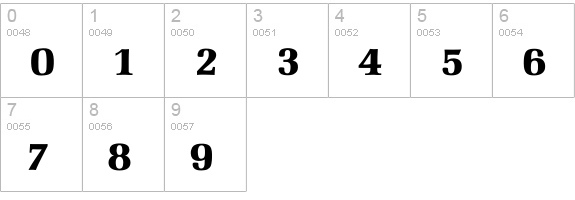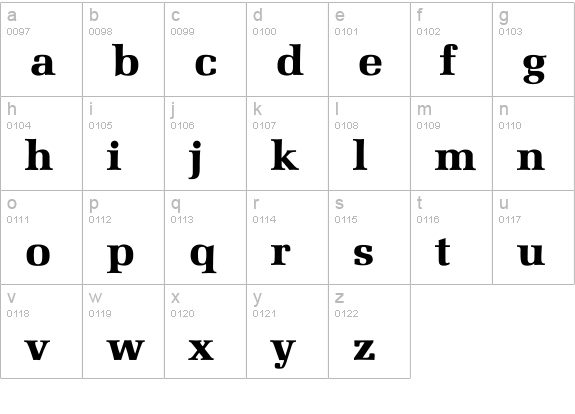
Marsei Bold is a strong, high-contrast variant in the Marsei typeface family \xE2\x80\x94 well suited to headlines, attention-grabbing titles, and strong calls-to-action.
Introducing Marsei Bold, the epitome of elegance and sophistication in the world of typography. With its sleek and modern design, this font exudes confidence and style, making it the perfect choice for any project that demands attention and professionalism. Marsei Bold effortlessly combines sharp, clean lines with a touch of uniqueness, creating a visual masterpiece that captivates the eye. Its bold and strong presence ensures that your message is conveyed with impact and authority. Whether used in headlines, logos, or any other creative endeavor, Marsei Bold will leave a lasting impression. But what makes Marsei Bold even more remarkable is that it is free. Yes, you read that right! This incredible font is freely available to download at FontsMarket.com. Now, you can enhance your designs without breaking the bank or compromising on quality. Marsei Bold offers the best of both worlds – affordability and excellence. Don't settle for ordinary when you can have extraordinary. Download Marsei Bold today and let your creativity soar to new heights. Stand out from the crowd and make a statement with this exceptional font. FontsMarket.com is your go-to destination for all your typography needs, and Marsei Bold is just one of the many incredible options waiting for you. So why wait? Embrace the power of Marsei Bold and elevate your designs to a whole new level.